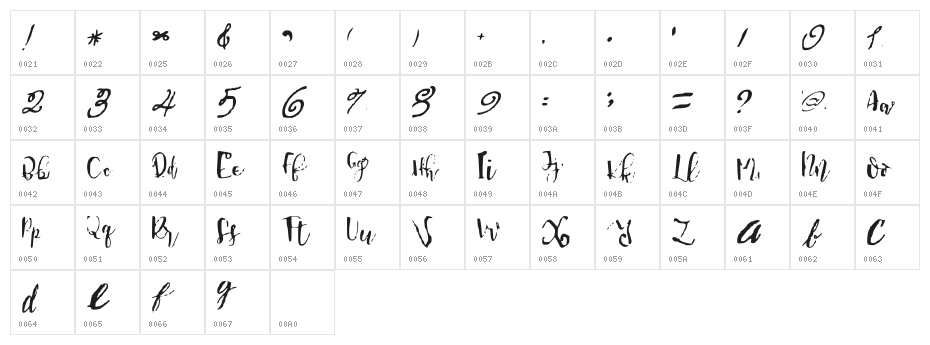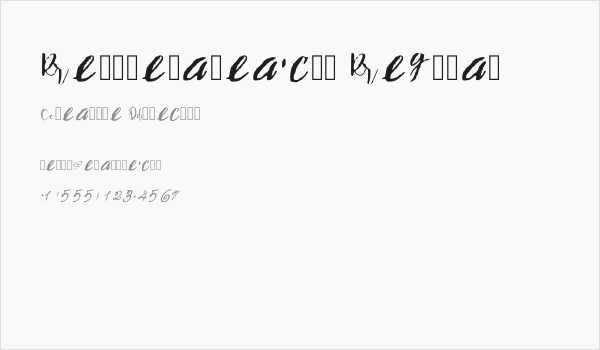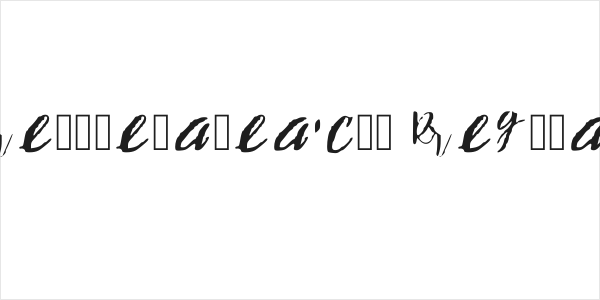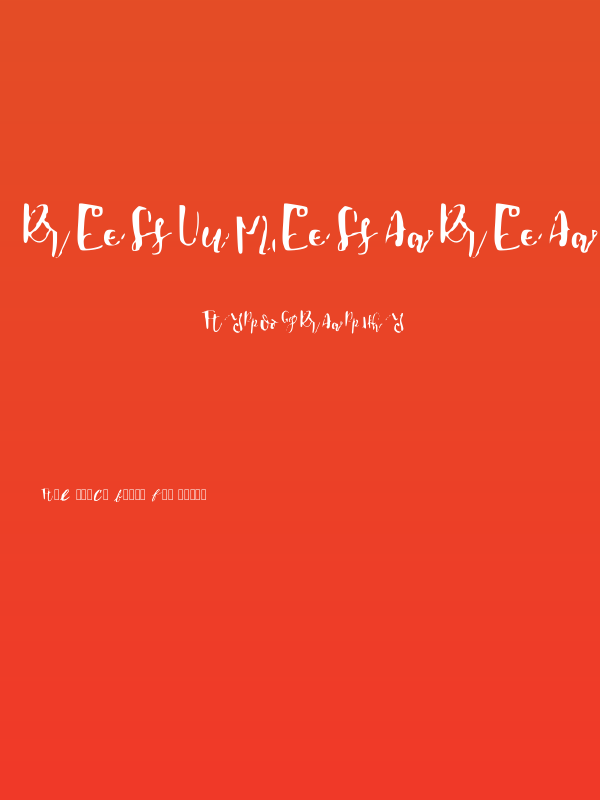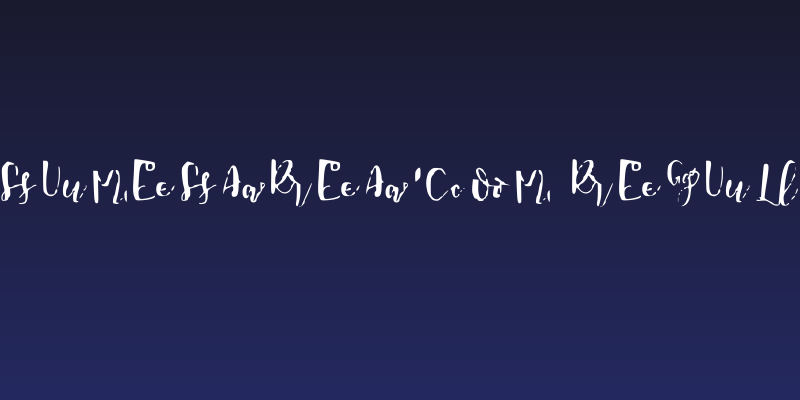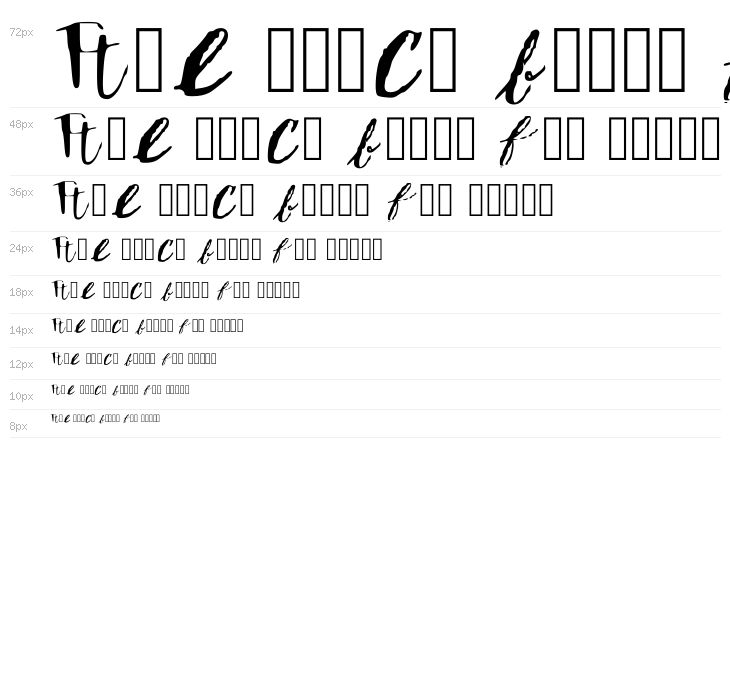
Resumesarea.com Regular Font
Resumesarea.com Regular Description
This font features a dynamic and expressive style, characterized by its brush-like strokes and fluid, cursive forms. The letters exhibit a sense of movement and energy, with varying stroke widths that create a lively and artistic appearance. The uppercase letters are bold and prominent, while the lowercase letters maintain a consistent flow, enhancing the overall aesthetic. The numerals and special characters are crafted with the same attention to detail, ensuring a cohesive look across all elements. This font's unique style makes it suitable for creative and artistic projects.